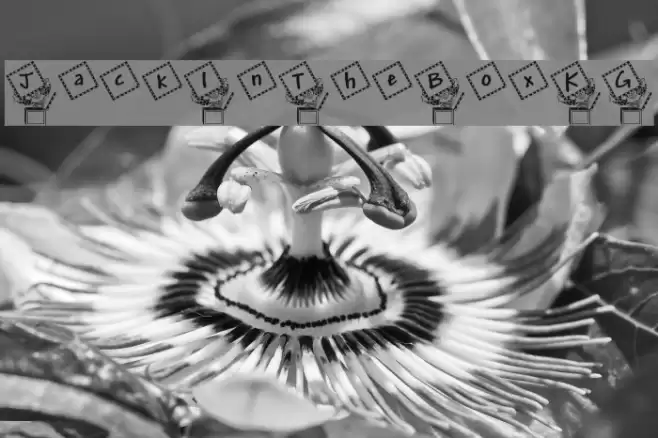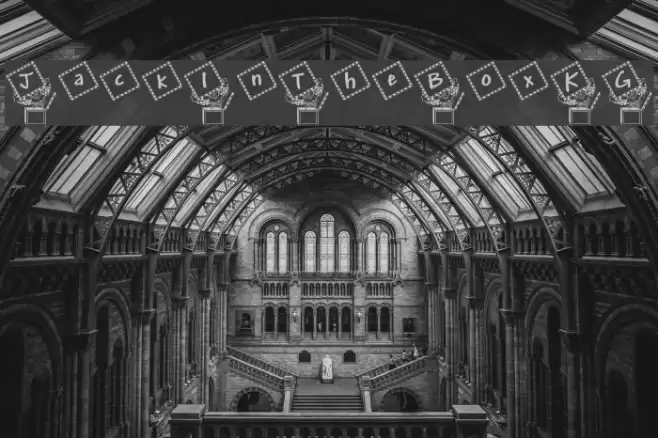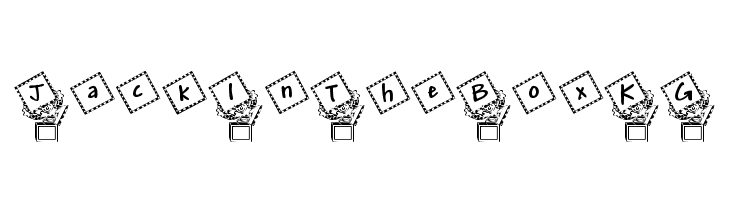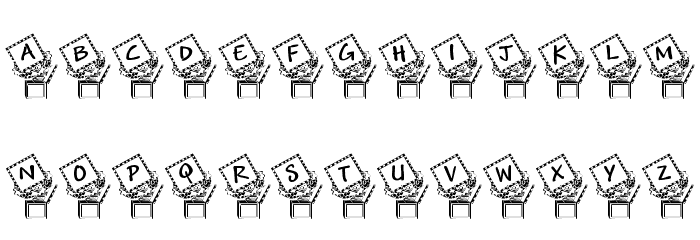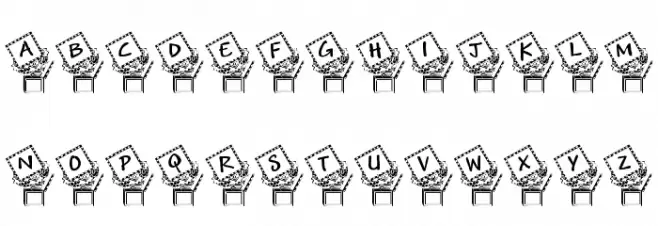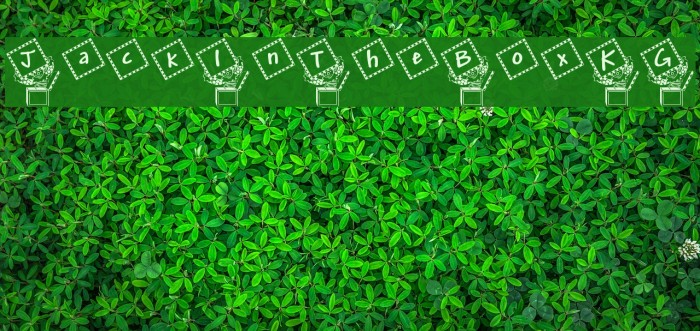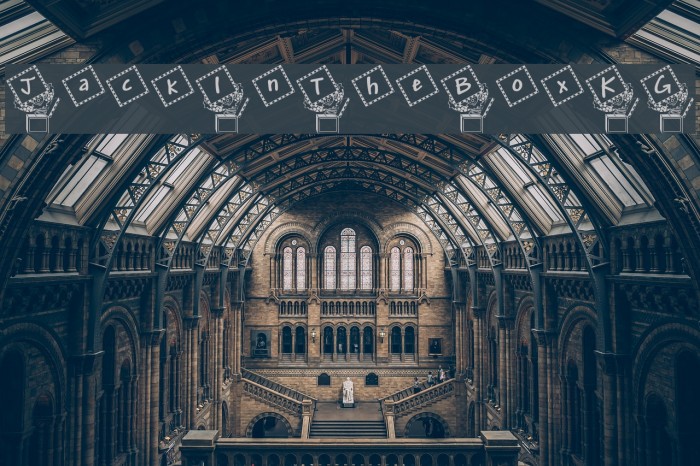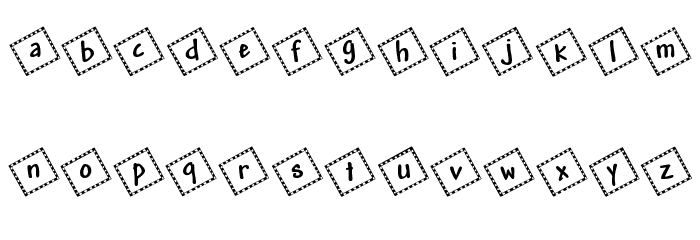
JackInTheBox_KG Font
JackInTheBox_KG Description
This playful and whimsical font features letters enclosed in dotted squares, each tilted at an angle, giving a dynamic and fun appearance. The uppercase and lowercase letters are consistent in style, maintaining the playful theme throughout. The characters are bold and stand out due to their unique presentation, making them ideal for creative and informal projects. The font includes a full set of uppercase and lowercase letters, numbers, and a selection of special characters, all maintaining the same distinctive style.
A playful, whimsical font with letters in dotted squares, tilted for a dynamic look from Uncategorized fonts.
- Proposed Projects: Ideal for children's books, playful branding, party invitations, and creative posters.
- Overall Style: Playful, Whimsical